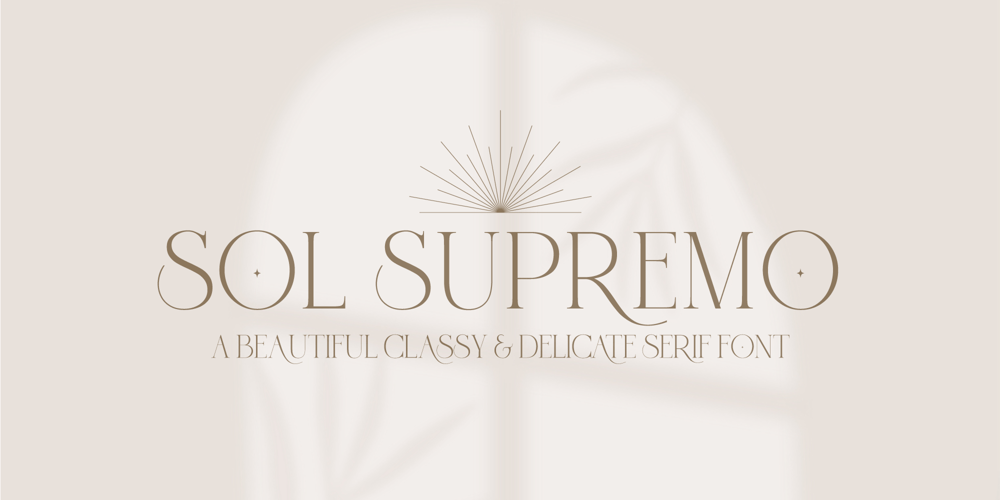
Sol Supremo Font Family was designed by Zak M and published by Prestige Artsy Studio. Sol Supremo contains 1 styles and family package options. Introducing “Sol Supremo,” a stunning all caps serif font that combines elegance and modernity with a touch of nostalgia. With its clean lines and confident curves, this aesthetic typeface brings a fresh perspective to any design project. Whether it’s for a sleek logo, striking headlines, or stylish print materials, Elevate adds a touch of sophistication, elevating your visuals to the next level.